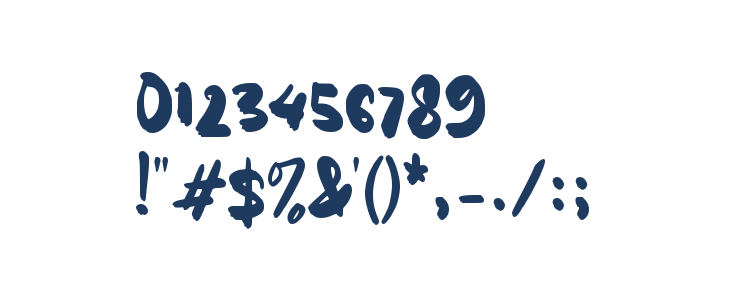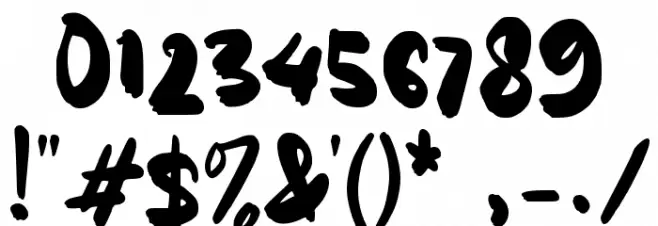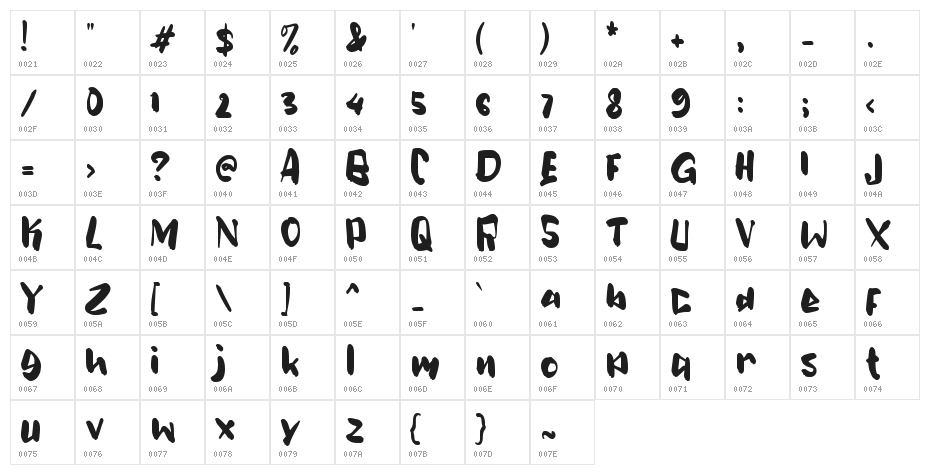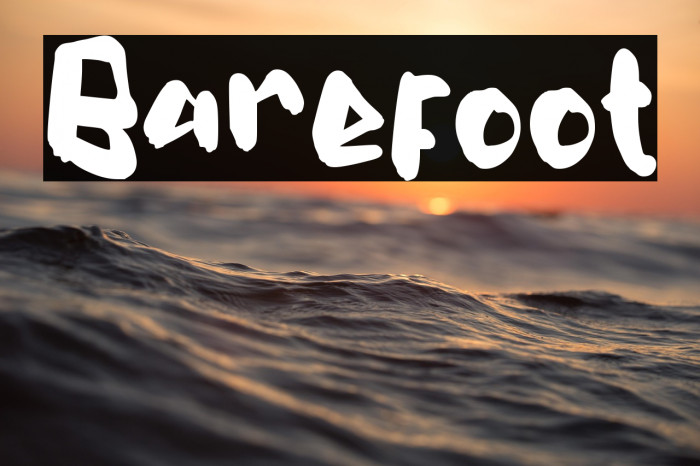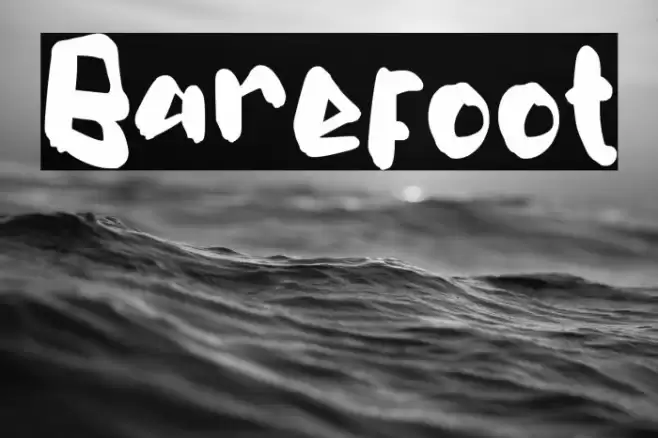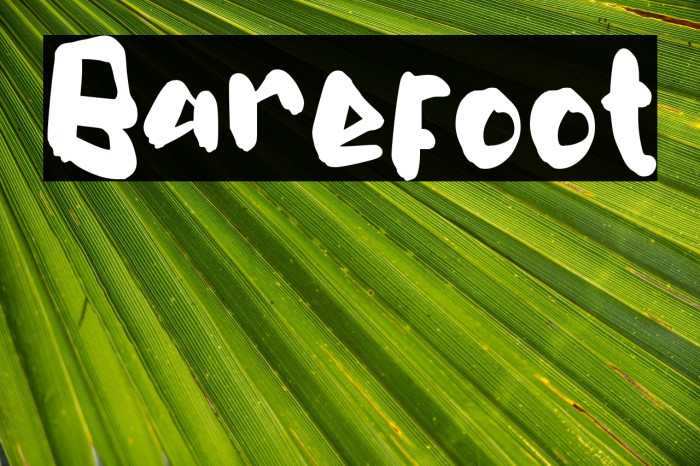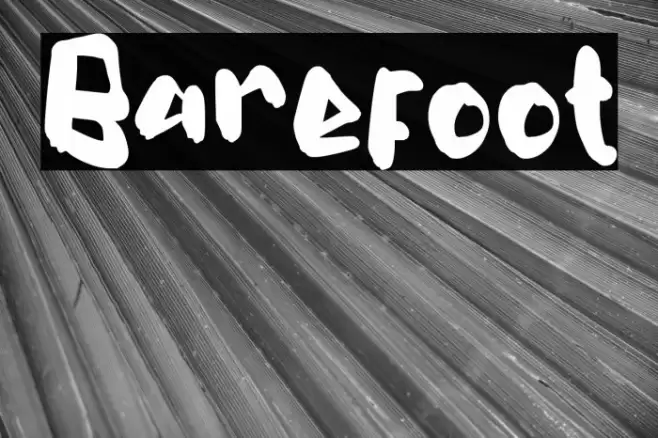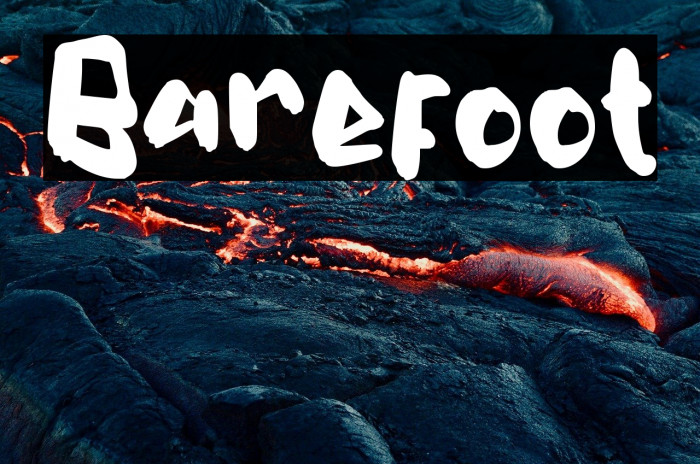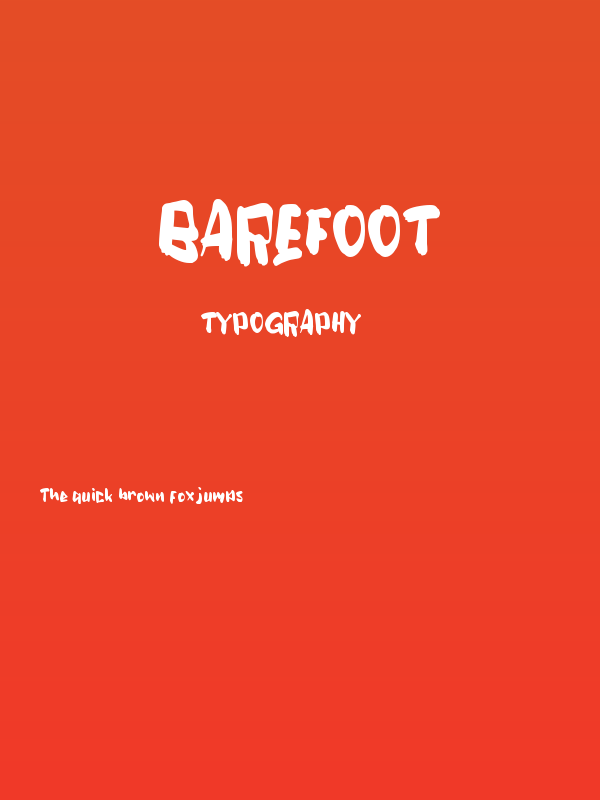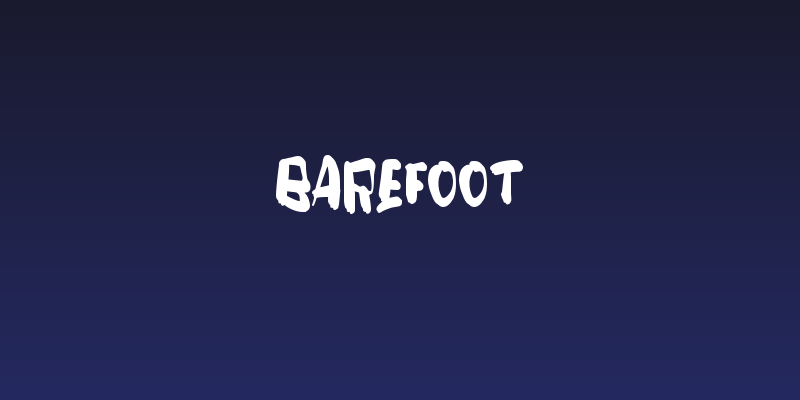
Barefoot Font
Barefoot Description
This font features a bold, expressive style with a hand-painted appearance. The characters are thick and slightly irregular, giving a playful and artistic feel. The strokes are broad and uneven, contributing to a dynamic and energetic look. The uppercase and lowercase letters maintain a consistent style, with rounded edges and a slightly slanted orientation. The numbers and special characters follow the same aesthetic, ensuring a cohesive design. This font is ideal for projects that require a bold and creative touch, such as posters, branding, and artistic designs.
| Proposed Projects | Ideal for posters, branding, artistic designs, and creative projects. |